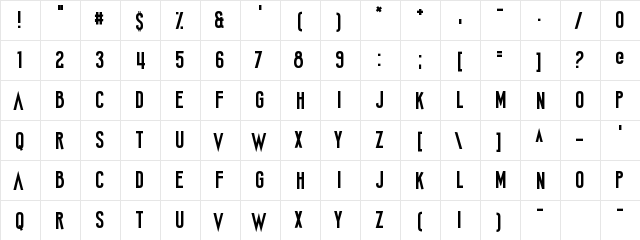
Amateur Camcorder Regular
Design Context for Amateur Camcorder Typeface
Amateur Camcorder is a composed and adaptable typeface that performs quietly and consistently across a wide range of design contexts.